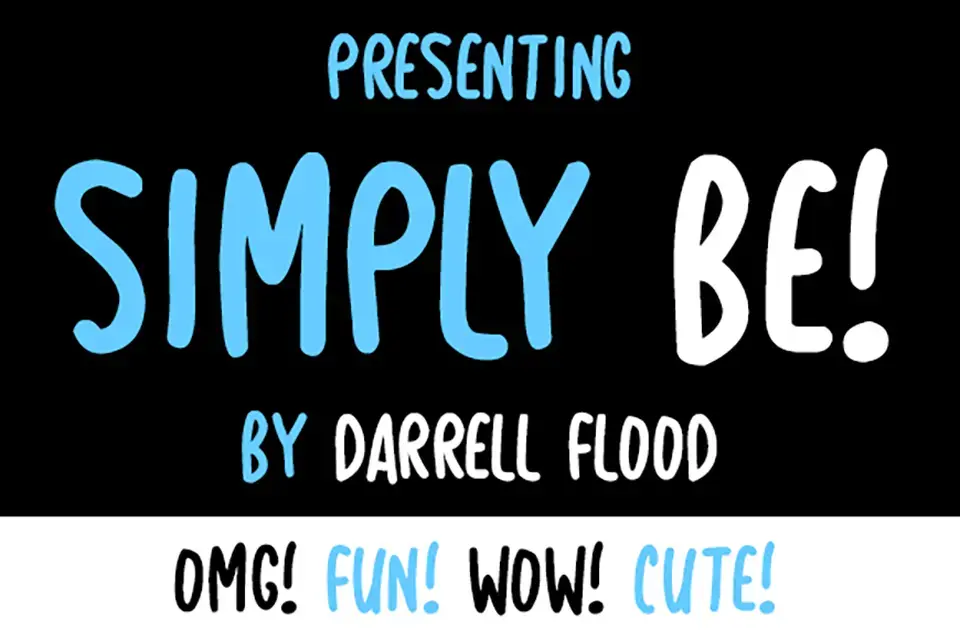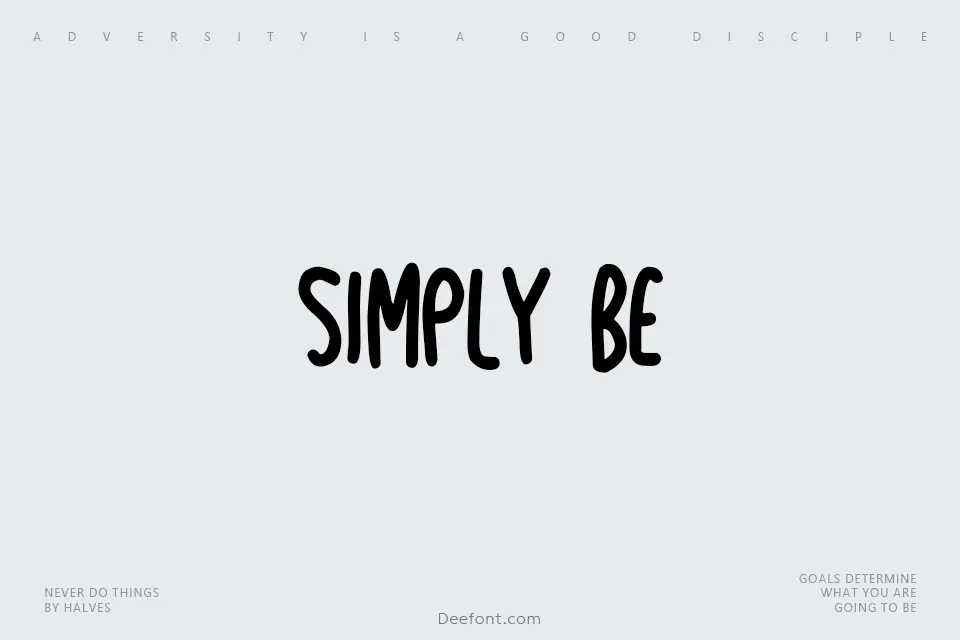
Simply Be Font
Simply Be Font is a casual handwritten script with smooth curves and rounded strokes that feel friendly and relaxed, perfect for quote graphics, logos, invitations, greeting cards, packaging, and seasonal branding where a warm, personal and feminine touch is needed across print and digital designs.